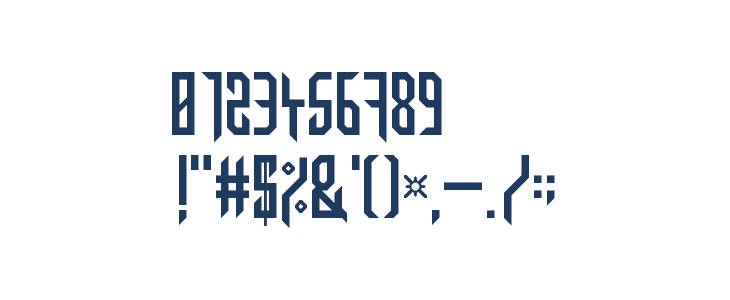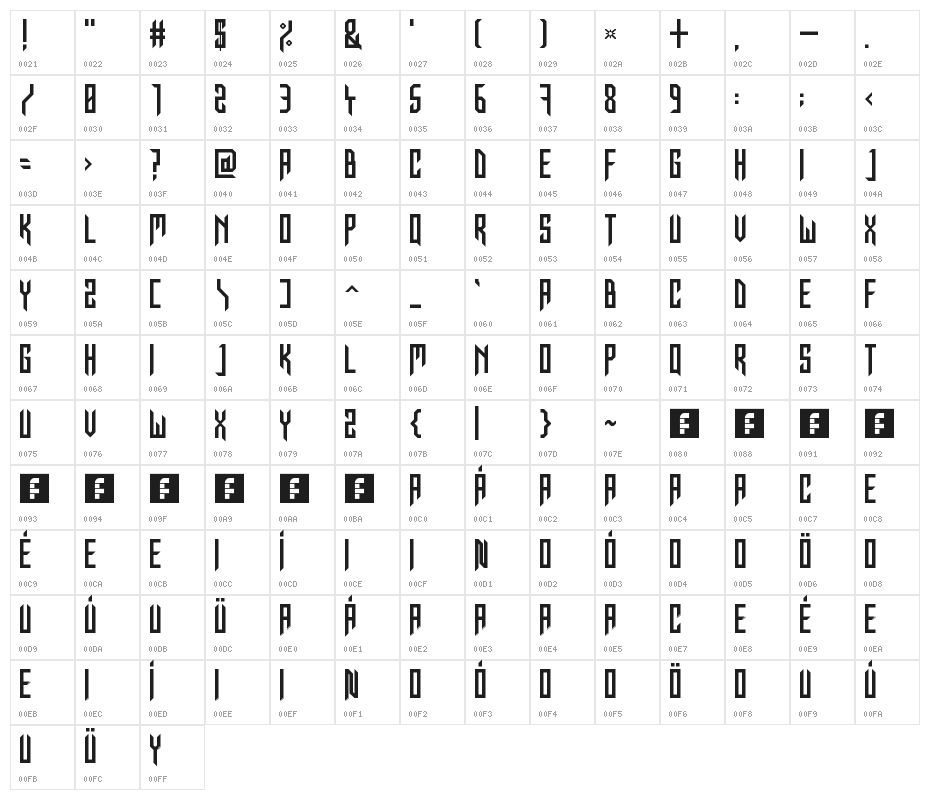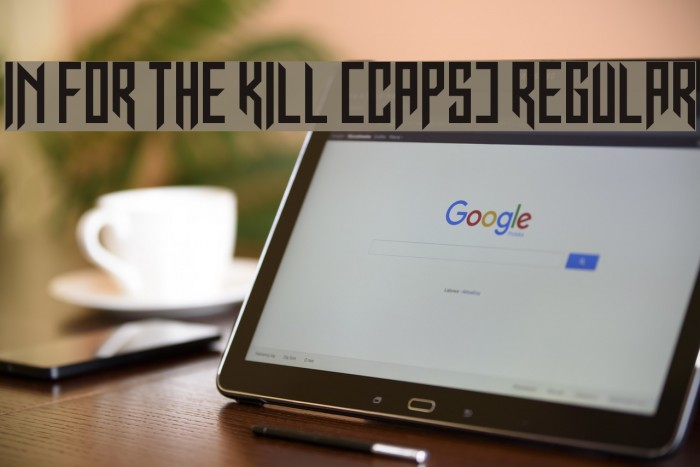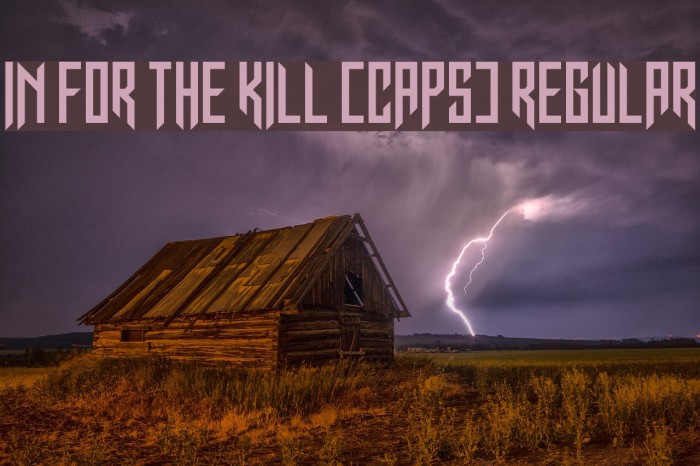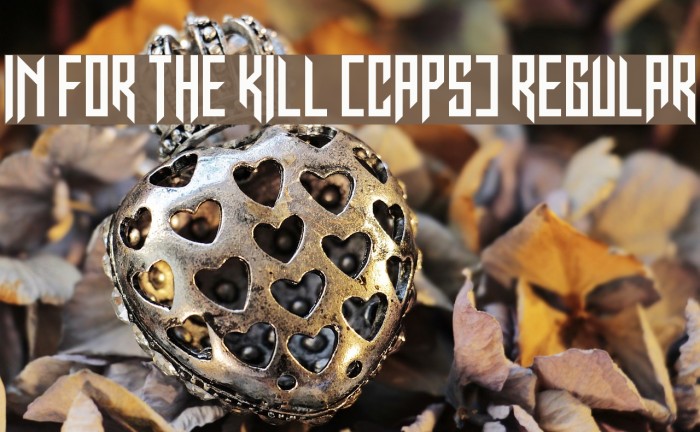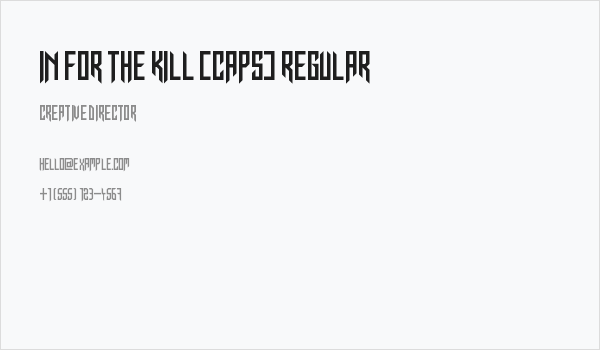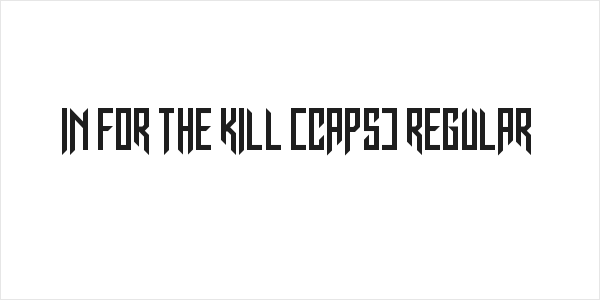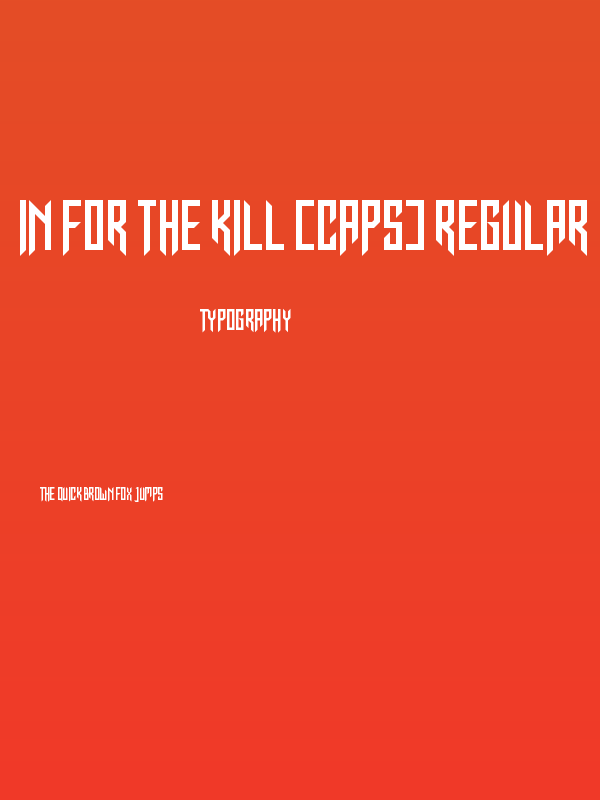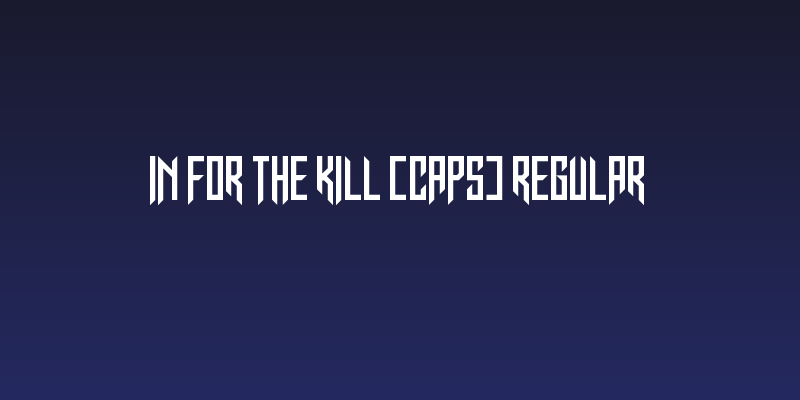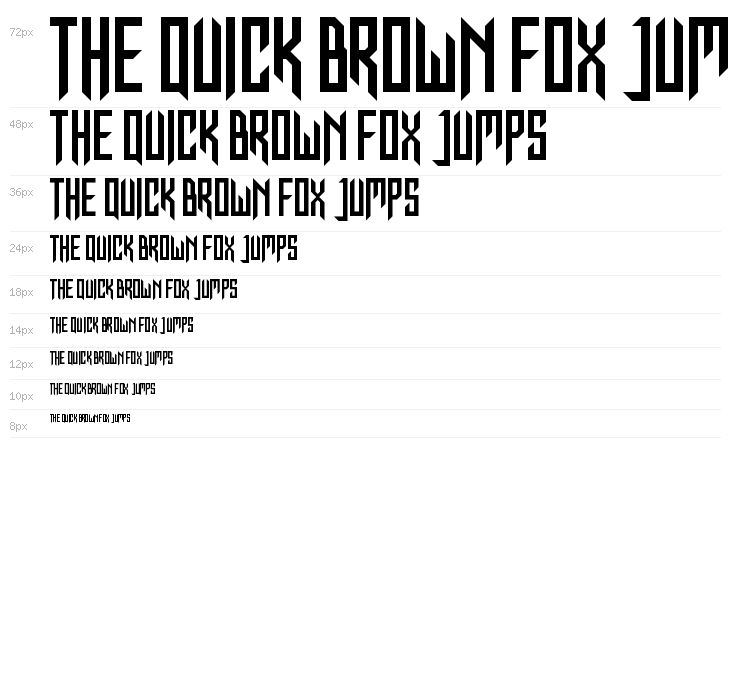
In for The Kill [caps] Regular Font
In for The Kill [caps] Regular Description
This font features a bold, angular design with sharp edges and a futuristic aesthetic. The characters are constructed with straight lines and pointed corners, giving them a dynamic and aggressive appearance. The uppercase letters are particularly striking, with a uniform height and consistent stroke width. The numerals and special characters maintain the same sharp, geometric style, ensuring a cohesive look across all glyphs. This font's unique design makes it stand out, ideal for projects that require a modern and edgy feel.